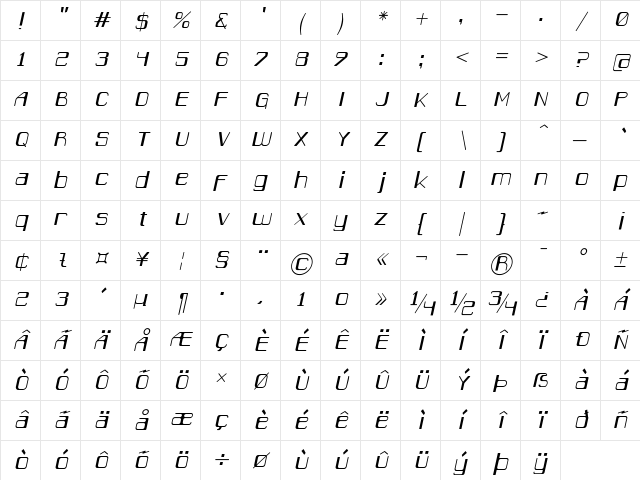
Caracas Light-Italic
Style: Light-Italic
Designer: Jorge Algarin
Design Context for Caracas
Caracas is a composed and adaptable typeface that performs quietly and consistently across a wide range of design contexts. The slanted form adds forward momentum and visual energy. Its slender proportions lend an understated elegance to any composition.
Pro Tip: Use Caracas for emphasis, pull quotes, and subheadings where its slanted energy can add rhythm to the layout.